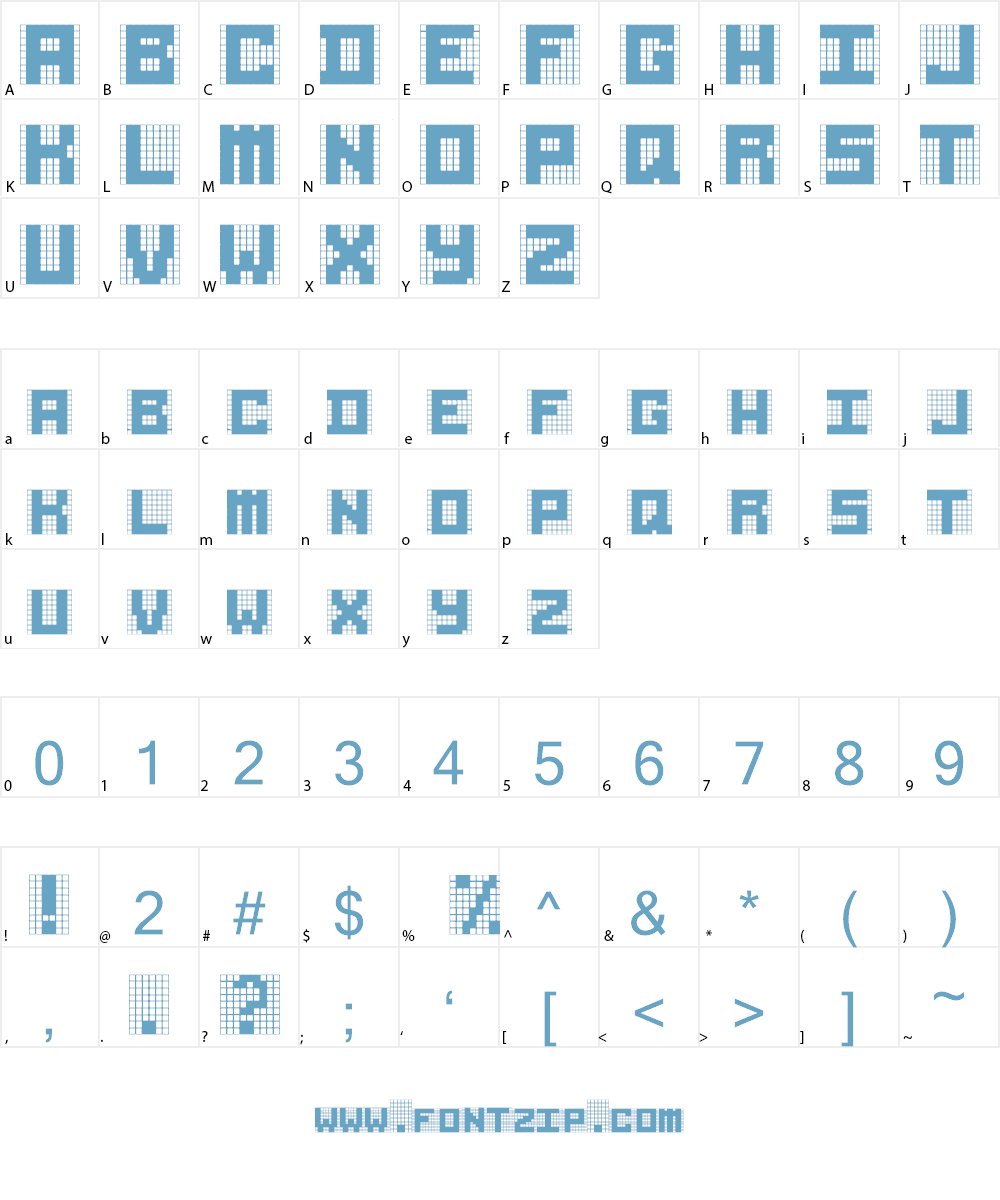
I introduced my eight year old son to the popular 3x3 cubed puzzle by the Hungarian sculptor and professor of architecture Ernő Rubik that celebrated it's 40th Birthday in 2014. I taught him how to complete it using the logical method, two years later after many happy hours of teaching and learning he had this great idea for this typeface. We used a matrix of three 3x3 cubes stacked three high to make a 9x9 grid to pay homage to the original design.